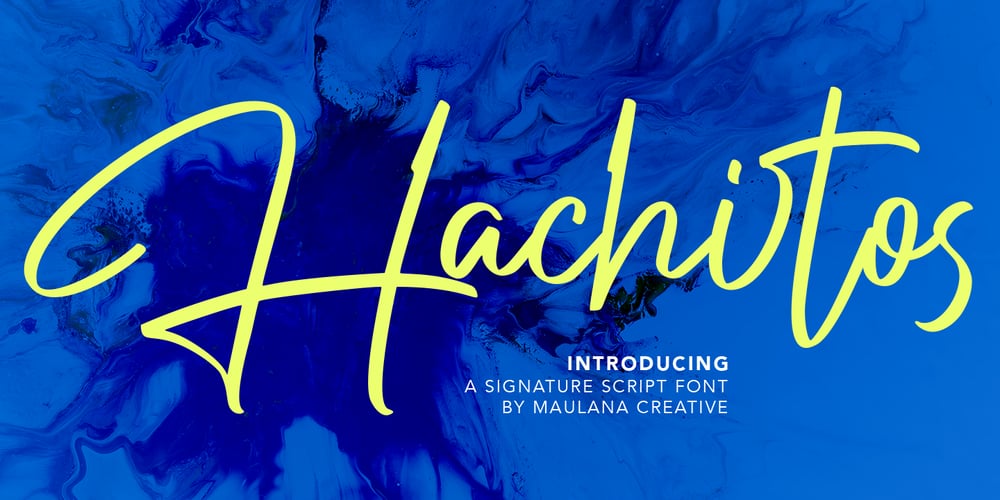
Hachitos Font Family was designed by Gilang Maulana and published by Maulana Creative. Hachitos contains 1 styles and family package options. Hachitos is a modern casual signature font. Hachitos included opentype features Ligatures and extra swash. Hachitos support multilingual more than 100+ language. This font is good for logo design, Movie Titles, Books Titles, a short text even a long text letter and any awesome project you create. Make a stunning work with Hachitos signature font. Cheers, MaulanaCreative